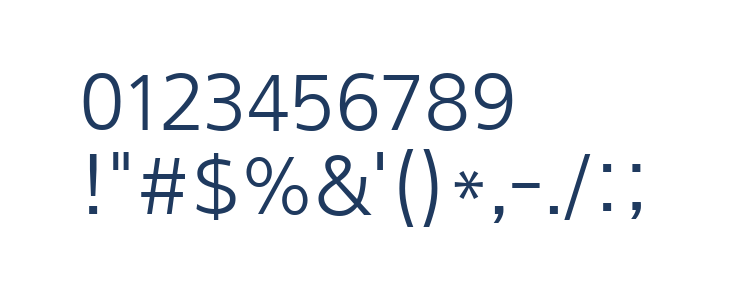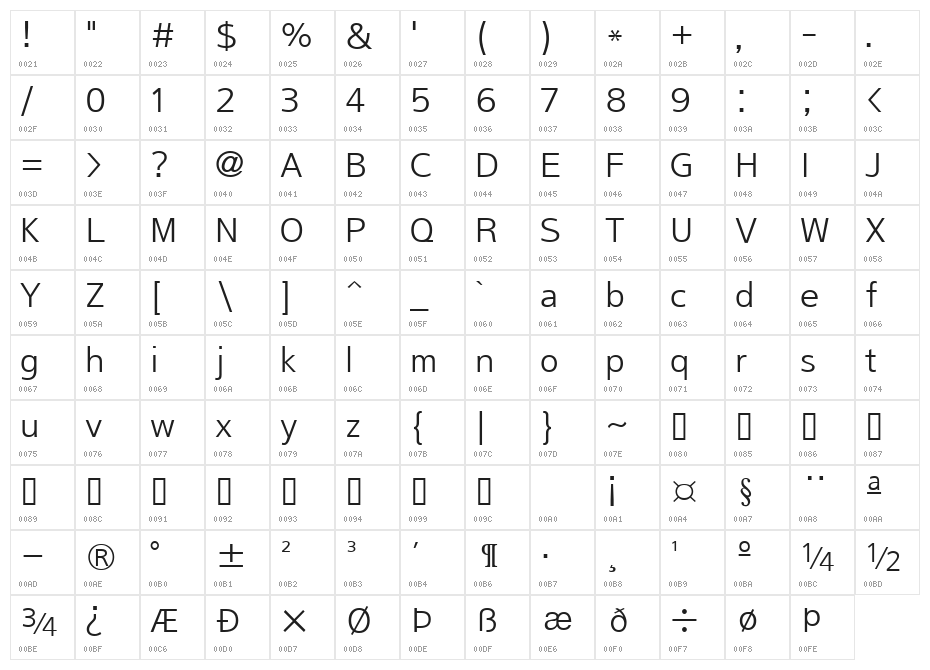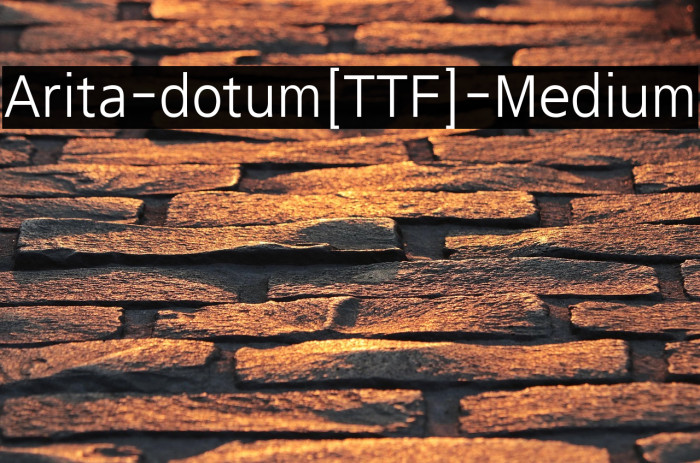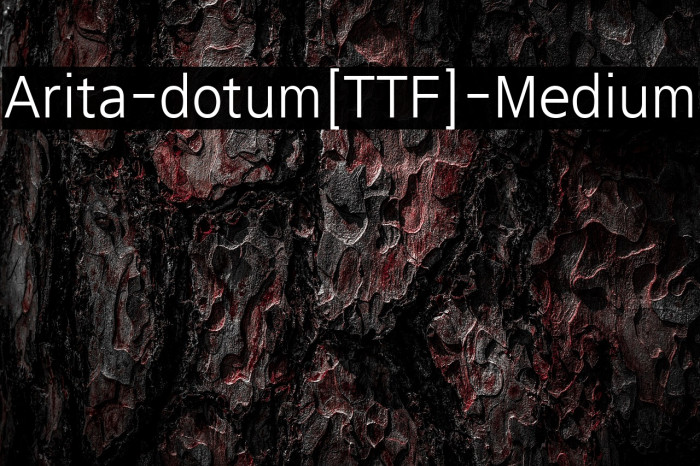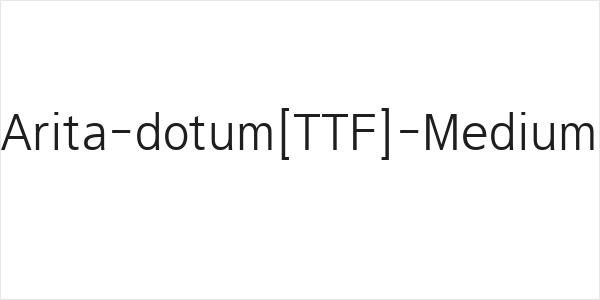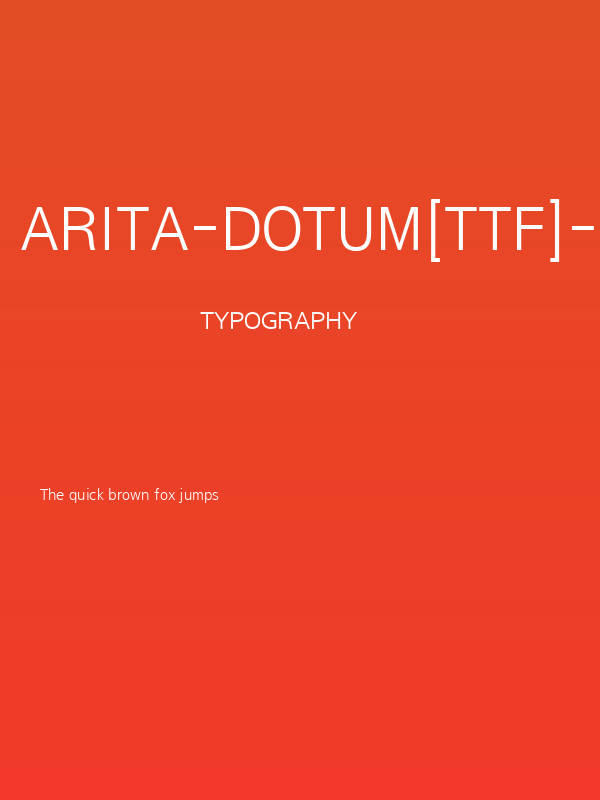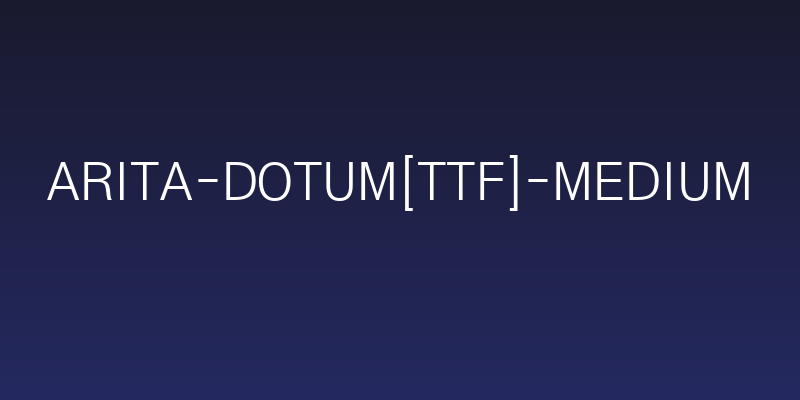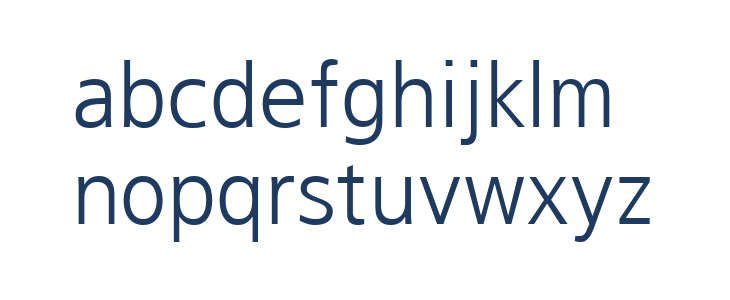
Arita-dotum[TTF]-Medium Font
Arita-dotum[TTF]-Medium Description
This font features a clean and modern sans-serif design, characterized by its simplicity and readability. The letters are evenly spaced, providing a balanced and harmonious appearance. The strokes are consistent in width, contributing to a uniform and professional look. The font includes both uppercase and lowercase letters, numerals, and a variety of special characters, making it versatile for various applications. Its straightforward style makes it suitable for both digital and print media, ensuring clarity and legibility across different sizes.
| Use Case | Body text, User interfaces, Editorial content |
| Proposed Projects | Ideal for corporate branding, web design, user interfaces, and editorial content. |